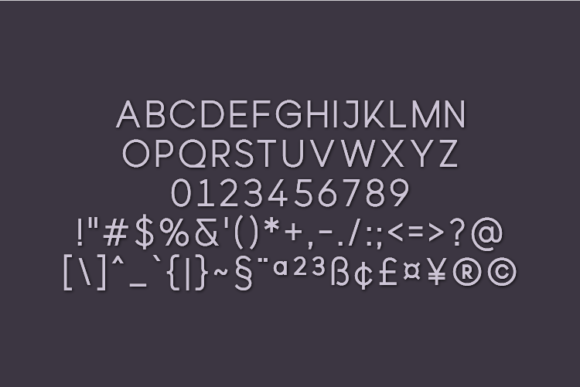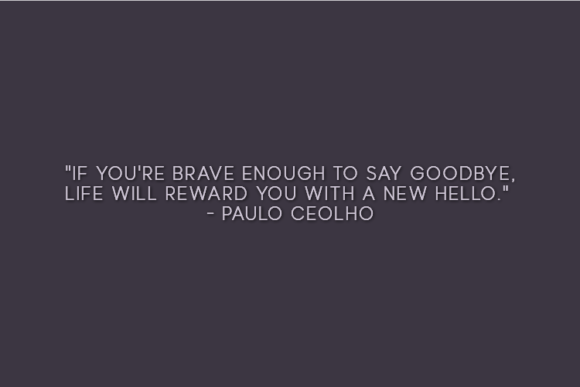
Introducing Brooklyn Valentina Font: Elevate Your Designs with Elegance
Are you on the hunt for a font that can effortlessly elevate your design projects? Look no further than the Brooklyn Valentina Font, a stunning sans serif font designed to complement every project you’re working on. With its clean lines, elegant aesthetic, and versatility, Brooklyn Valentina is the perfect addition to your font collection.
What Makes Brooklyn Valentina Font So Special?
Brooklyn Valentina is more than just a font – it’s a design powerhouse. Its sans serif design makes it incredibly versatile, suitable for a wide range of projects, from beautiful headings and gorgeous invitations to stunning logos and more. Whether you’re a designer, crafty DIY enthusiast, or simply someone who loves to dabble in creative projects, Brooklyn Valentina Font is sure to become your go-to choice.
The possibilities are endless with Brooklyn Valentina Font. Here are just a few ideas to get you started:
- Beautiful Headings: Use Brooklyn Valentina to create stunning headings for your blog posts, articles, or website. Its clean and elegant design is sure to grab attention and add a touch of sophistication to your content.
- Gorgeous Invitations: Create beautiful invitations for special occasions like weddings, birthday parties, or baby showers. Brooklyn Valentina’s elegant font style and sans serif design make it perfect for formal and informal events alike.
- Stunning Logos: Take your branding to the next level with Brooklyn Valentina Font. Its unique and stylish design makes it ideal for creating memorable logos that will set your business apart from the competition.
- Weddings and Special Events: Brooklyn Valentina Font is perfect for weddings, save-the-dates, and other special events. Its elegant design and versatility make it suitable for creating beautiful stationery, signage, and more.
Why Choose Brooklyn Valentina Font?
So, what sets Brooklyn Valentina Font apart from other fonts? Here are just a few reasons why designers and crafters love this font:
- Versatility: Brooklyn Valentina Font is incredibly versatile, making it suitable for a wide range of projects and design applications.
- Elegant Design: Its clean lines, elegant aesthetic, and sans serif design make it perfect for creating beautiful and sophisticated designs.
- Easy to Read: Brooklyn Valentina Font is easy to read, even at small sizes, making it perfect for body text and other applications where readability is key.
- Unique Style: Brooklyn Valentina Font has a unique style that will add a touch of elegance and sophistication to your designs.
Tips for Using Brooklyn Valentina Font
Here are a few tips for getting the most out of Brooklyn Valentina Font:
- Experiment with Different Sizes: Brooklyn Valentina Font looks great at a variety of sizes, from large headings to smaller body text.
- Pair it with Other Fonts: Try pairing Brooklyn Valentina Font with other fonts to create a unique and stylish design.
- Use it for Display Text: Brooklyn Valentina Font is perfect for display text, such as headings, titles, and captions.
In conclusion, Brooklyn Valentina Font is a stunning sans serif font that is perfect for designers, crafters, and anyone looking to elevate their design projects. With its elegant design, versatility, and unique style, Brooklyn Valentina is sure to become a favorite in your font collection. So why wait? Download Brooklyn Valentina Font today and start creating beautiful designs that will leave a lasting impression!